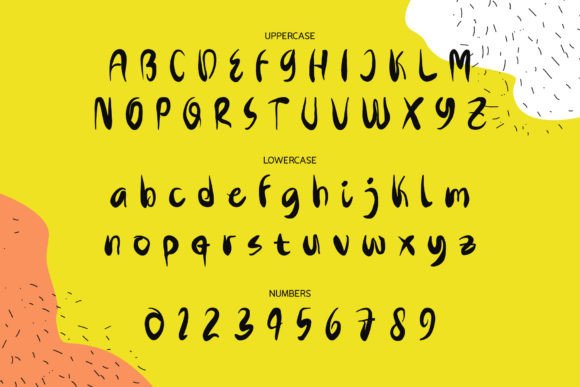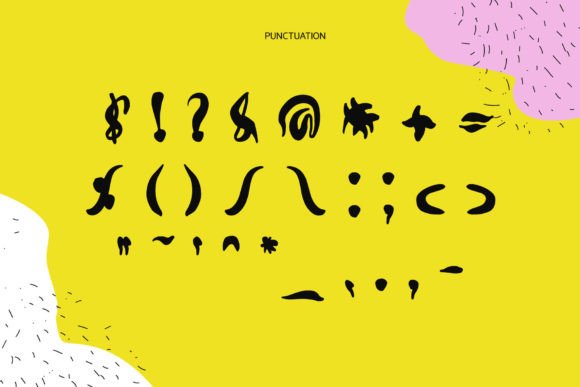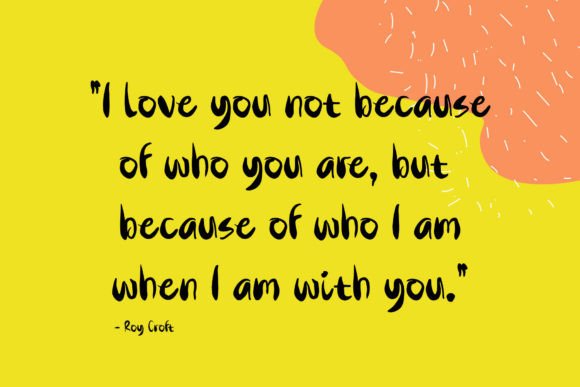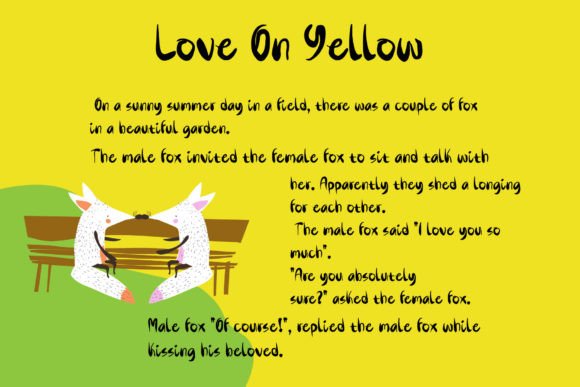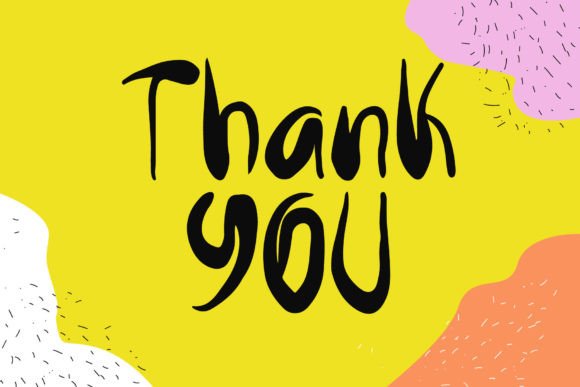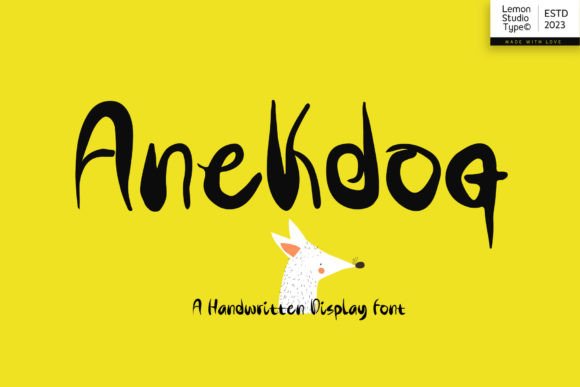
Discover the Whimsical World of Anekdoq Font
Have you ever been working on a design project, and suddenly, you’re stuck on finding the perfect font? I recall a recent experience where I was tasked with creating a children’s book, and I needed a font that would bring the story to life. The client’s request was simple: make it fun, playful, and engaging. After scouring through numerous font libraries, I stumbled upon Anekdoq Font, and it instantly clicked! In this article, we’ll explore the charming world of Anekdoq Font and how it can add a touch of whimsy to your designs.
A Personal Review of Anekdoq Font
As a designer, I’m always on the lookout for fonts that can help me create unique and memorable designs. Anekdoq Font has quickly become one of my go-to fonts for projects that require a playful touch. Here’s what I love about it:
- ✨ Fun and bouncy letterforms that create a sense of joy and light-heartedness
- ✅ Perfect for children’s books, greeting cards, and branding materials
- ✨ Quirky and cute script font that adds a touch of whimsy to any design
- ✅ Easy to read and understand, even for younger audiences
While Anekdoq Font is an excellent addition to any design project, it’s not without its quirks. Here are a few things to keep in mind:
- ⚠️ Some letters may appear a bit irregular or uneven, which can be a deliberate design choice but might not work for every project
- 🤔 Limited use of uppercase letters, which might limit its use in certain designs
The Story Behind Anekdoq Font
Anekdoq Font was designed by a team of creatives who wanted to create a font that would bring joy and playfulness to designs. Inspired by the world’s most whimsical and fantastical places, Anekdoq Font is a reflection of the beauty and magic that surrounds us. Whether you’re designing a children’s book, a greeting card, or a branding material, Anekdoq Font is sure to make you smile!
- Q: What is Anekdoq Font?
- A: Anekdoq Font is a quirky and cute script font designed to add a touch of whimsy and playfulness to designs.